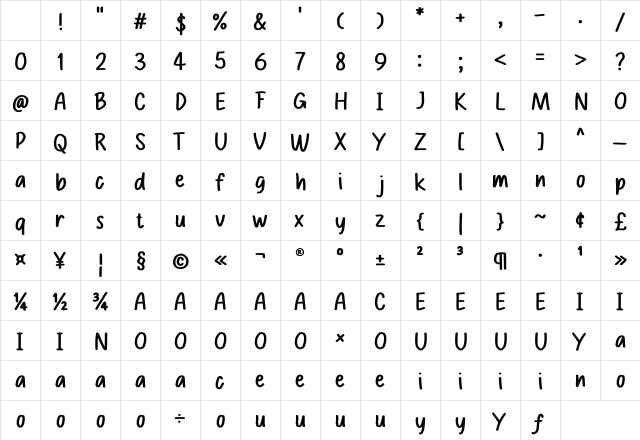
Kids Abah Funny has an approachable, lighthearted character - its loose, expressive forms are well-suited to children's content, casual branding, and fun-first design.
Font Pairing: Pairs well with a rounded or humanist sans for body copy, maintaining the friendly tone without relying on Kids Abah Funny to carry extended reading.
Pro Tip: Use Kids Abah Funny at larger display sizes where its expressive character can land. Pair with a clean, simple sans for body copy to maintain readability.